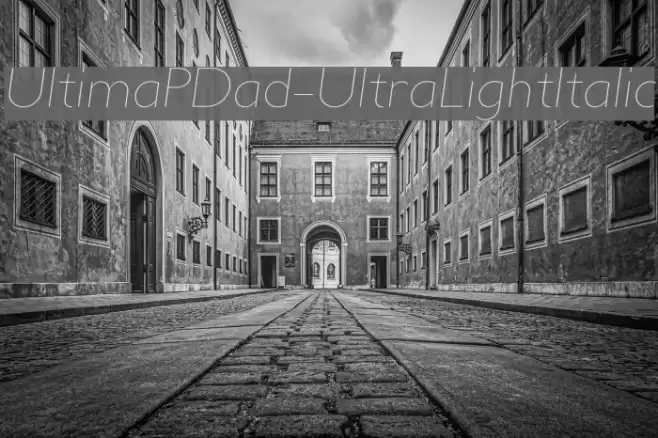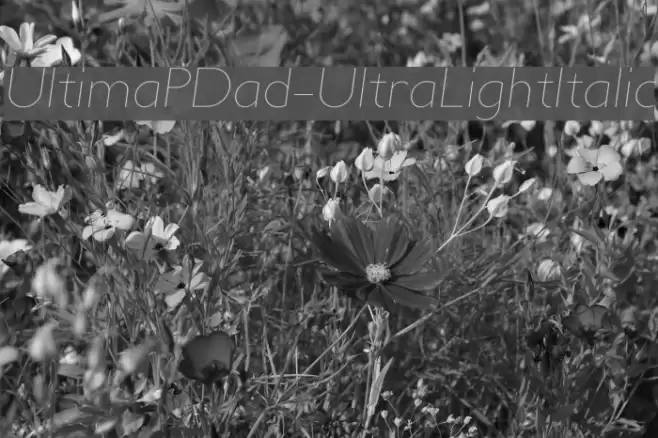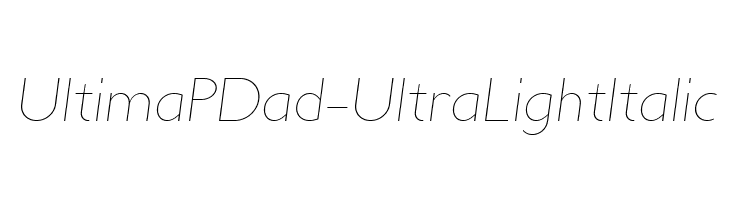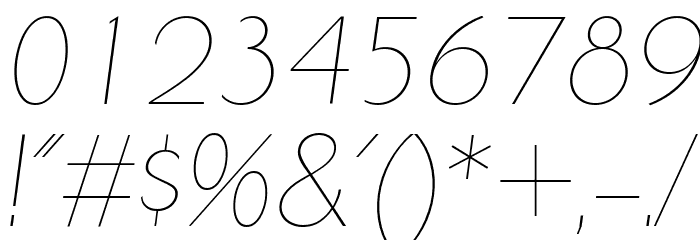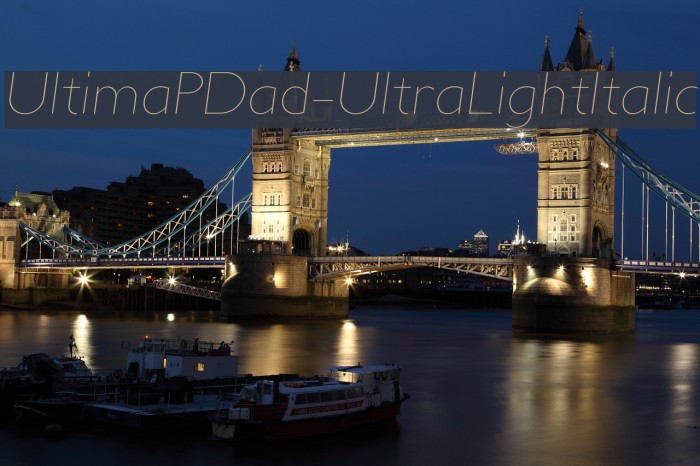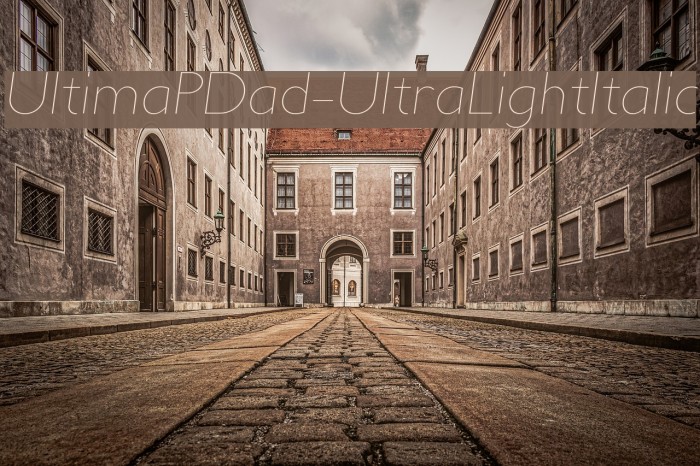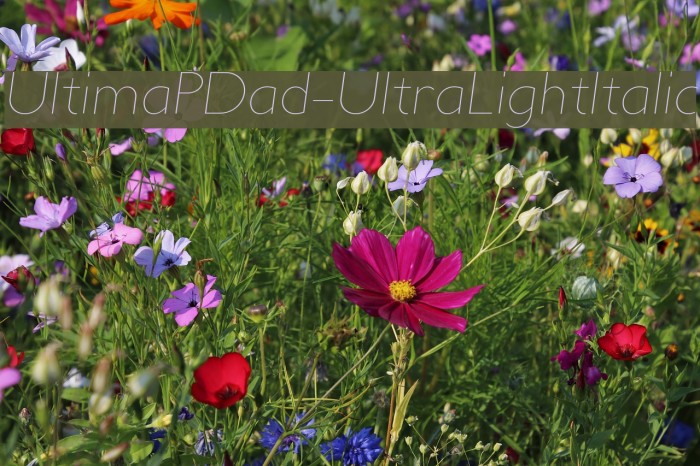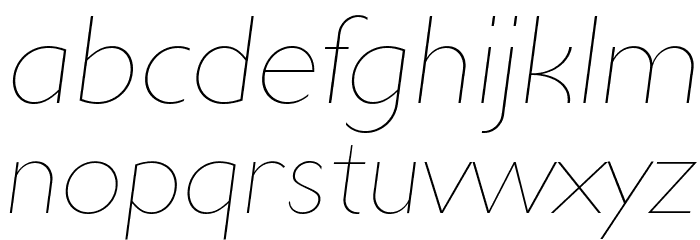
UltimaPDad-UltraLightItalic Font
UltimaPDad-UltraLightItalic Description
This font features a sleek and ultra-light design with a distinctly modern aesthetic. The characters are elegantly elongated, with a subtle slant that adds a touch of sophistication. The thin strokes and minimalistic approach make it ideal for contemporary design projects. The uppercase and lowercase letters maintain a consistent style, with clean lines and a refined appearance. The numerals and special characters are equally well-crafted, ensuring versatility across different applications. This font's airy and open feel makes it suitable for projects that require a light and elegant touch.
A sleek, ultra-light, and modern font with a subtle slant and minimalistic design from Uncategorized fonts.
- Proposed Projects: Ideal for fashion magazines, luxury branding, minimalist websites, and modern art posters.